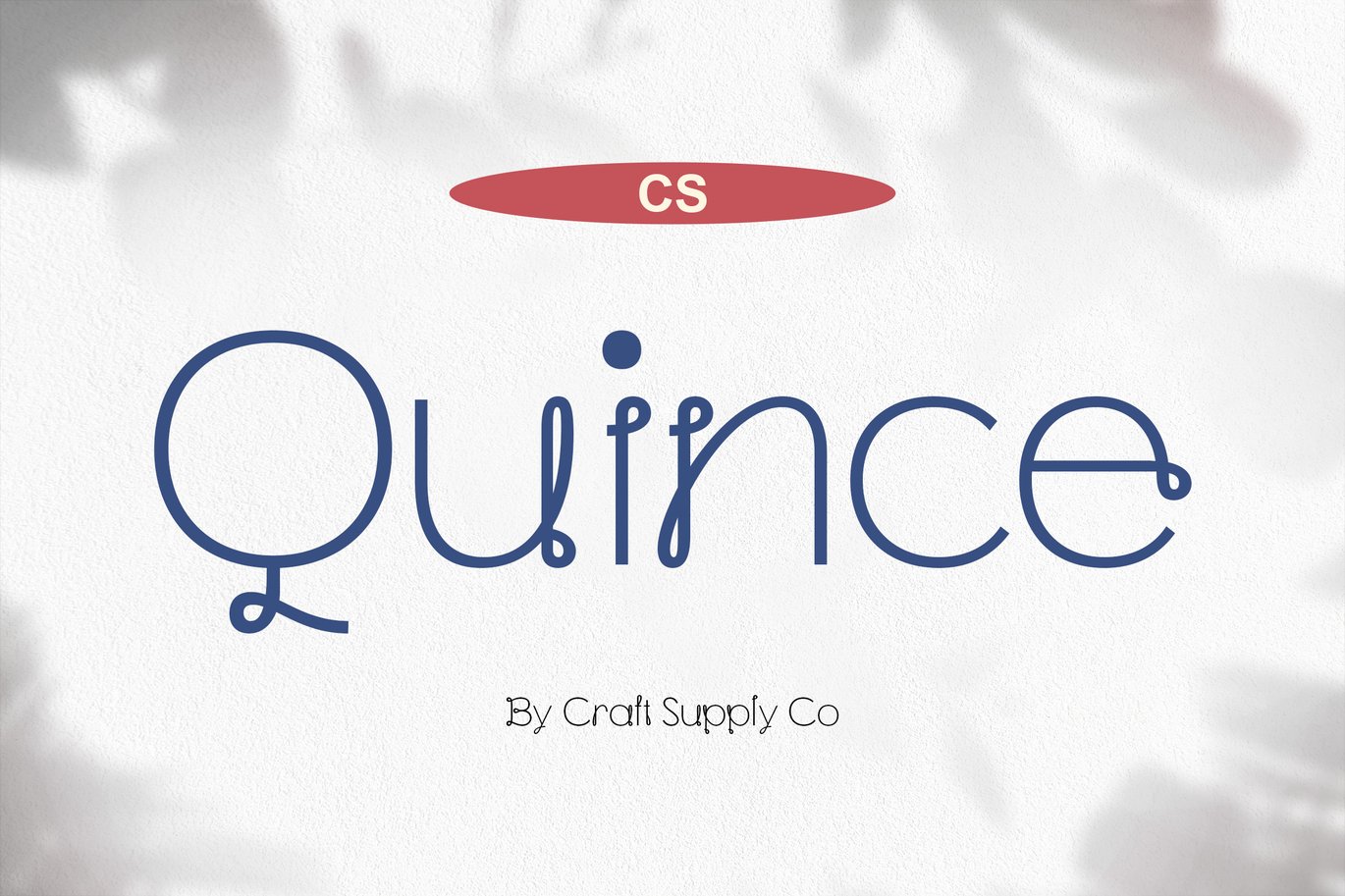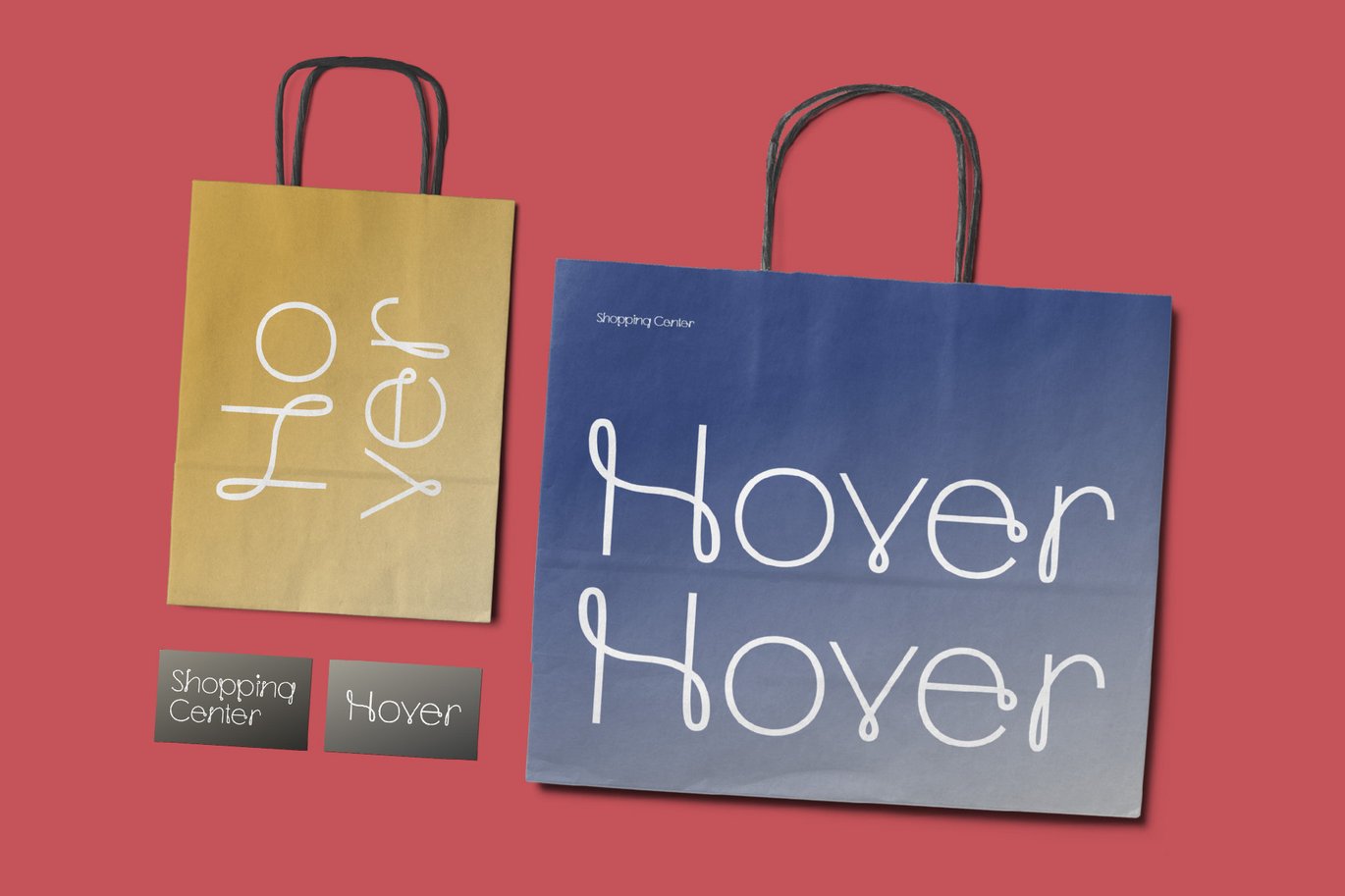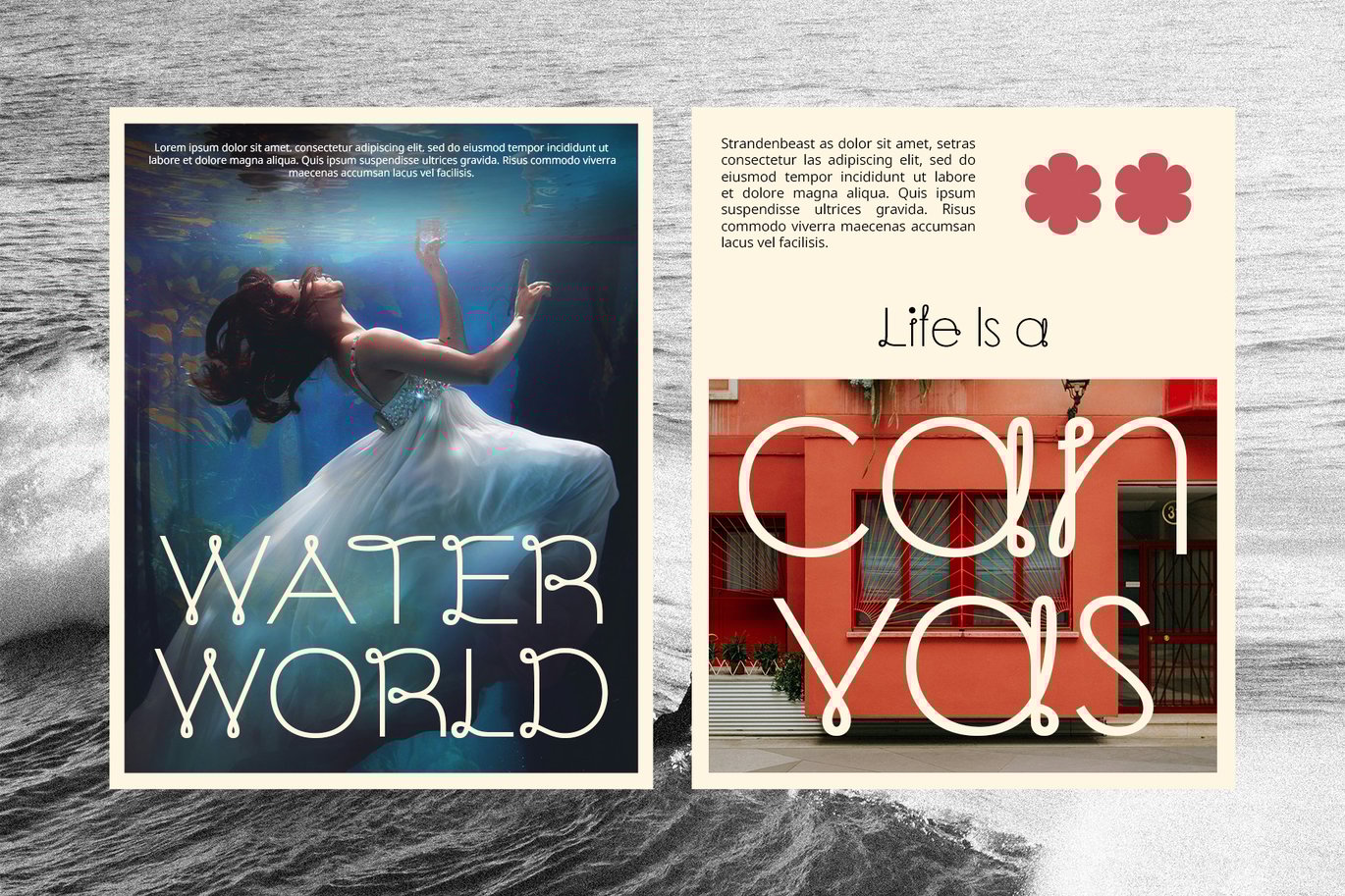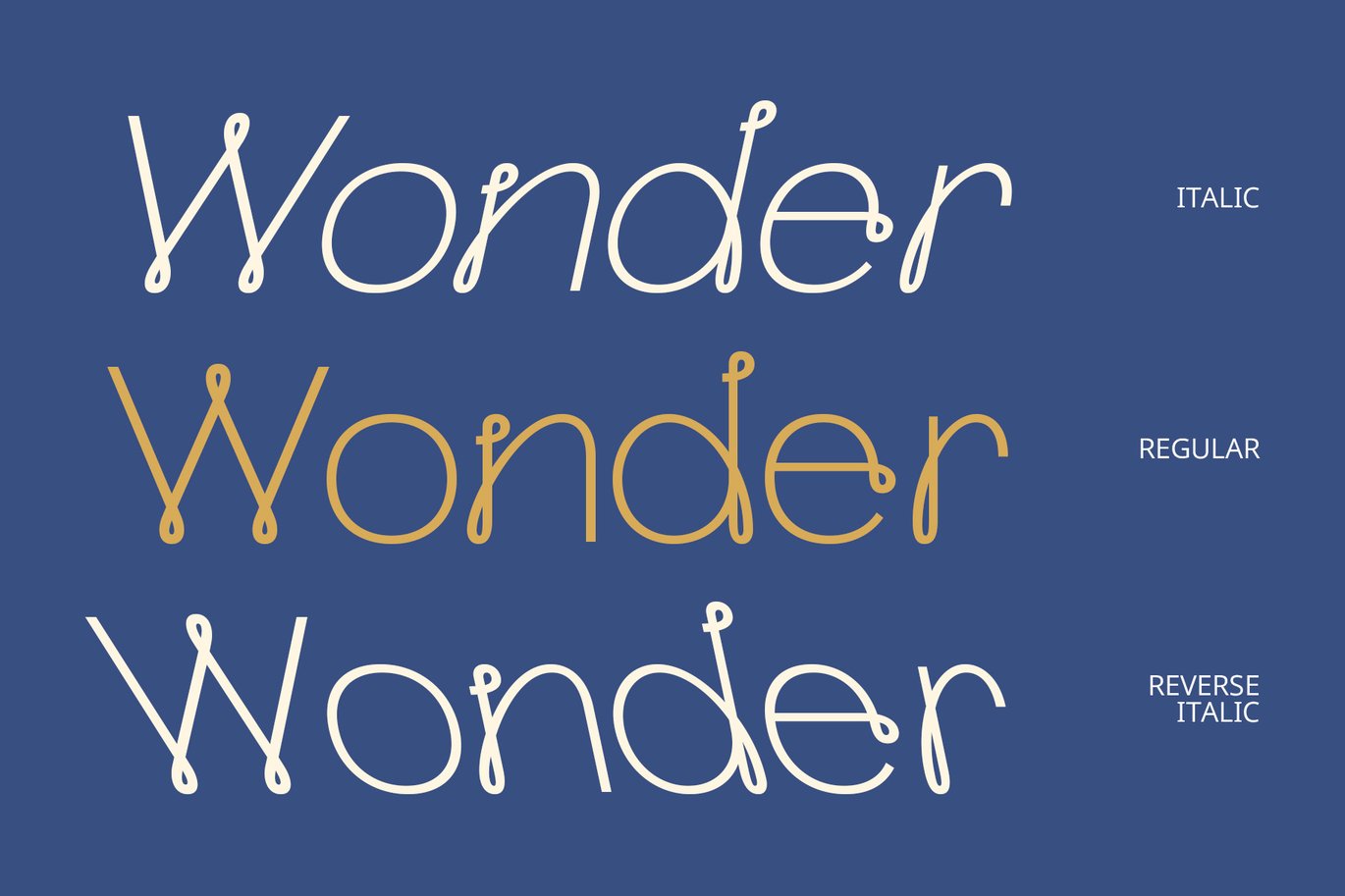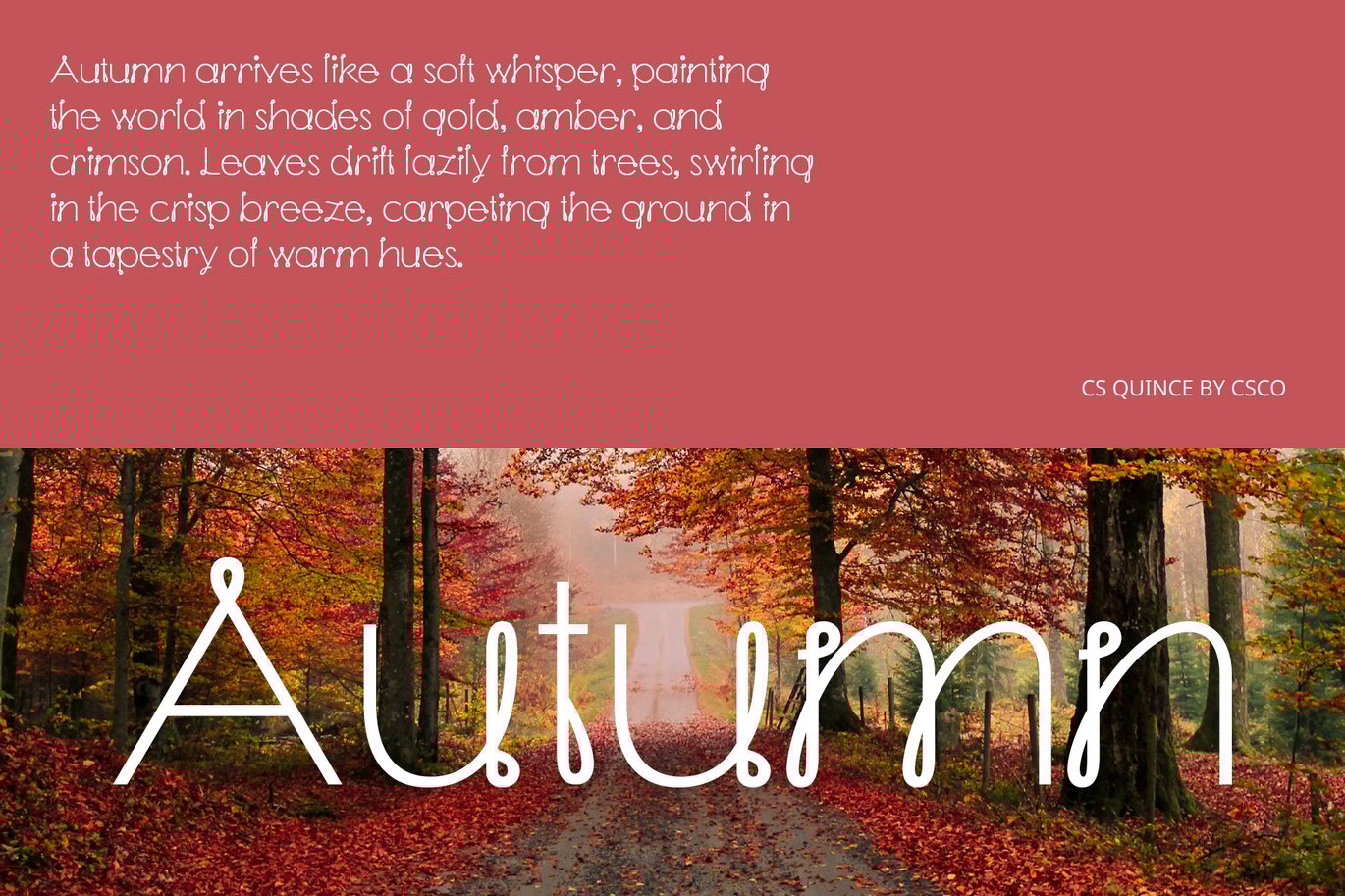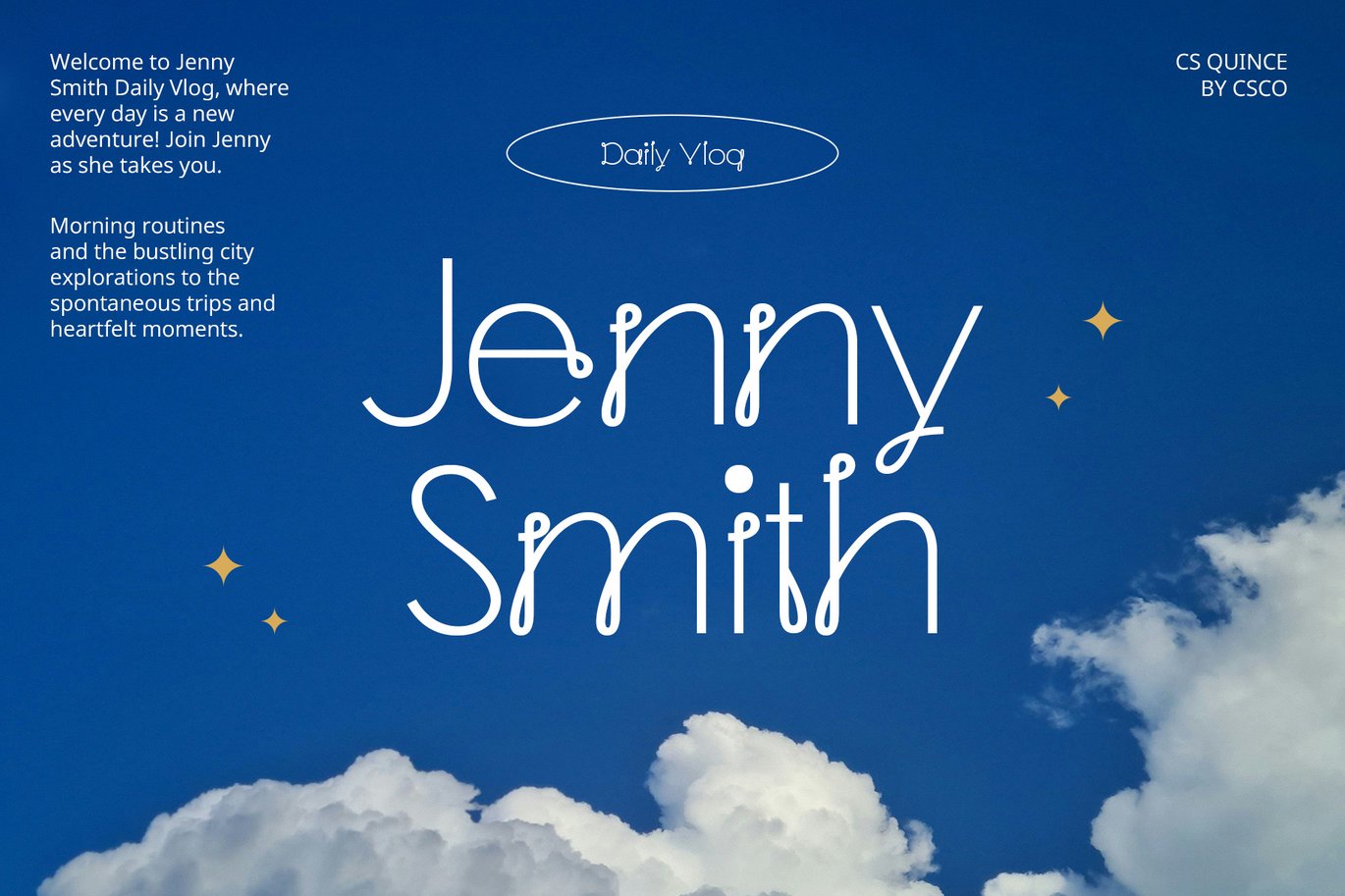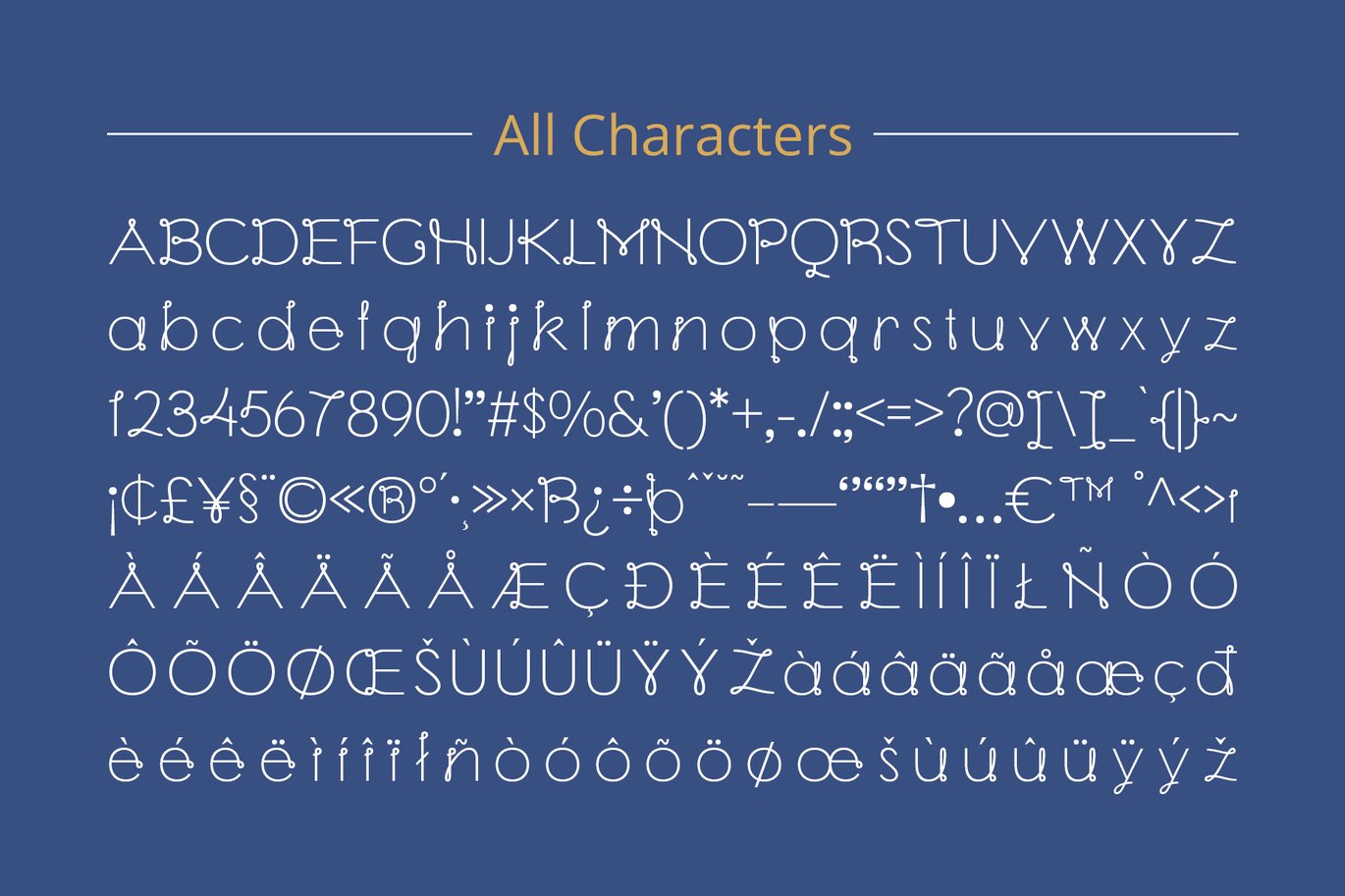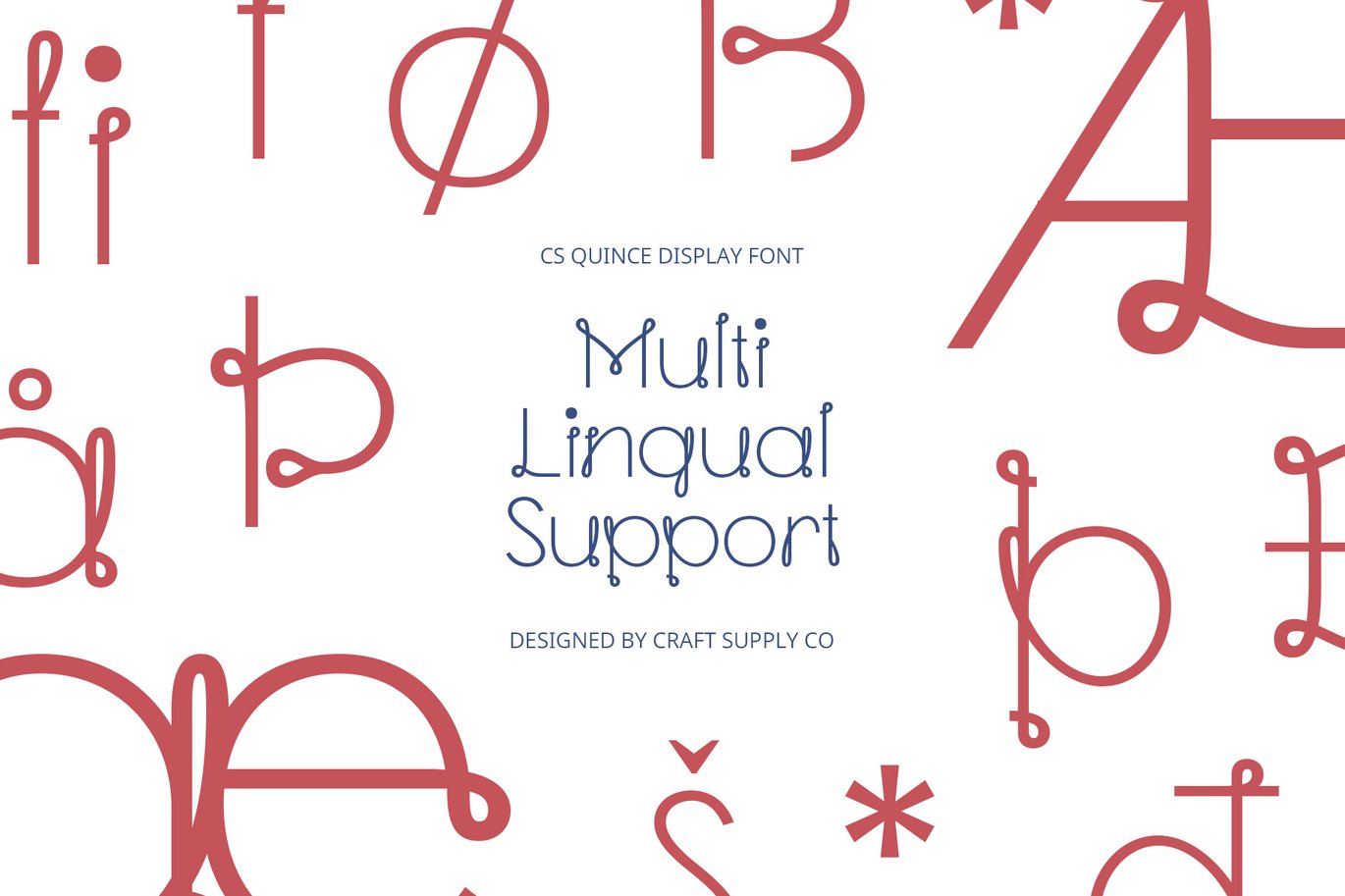
Quince – Cute Font
CS Quince – Cute Font: Playful Charm in Every Letter
Playful and Cheerful Design
CS Quince is a decorative display font that radiates fun and joy. With its playful shapes and rounded edges, this font exudes a light-hearted, cheerful energy. Perfect for adding a touch of whimsy to any project, it creates an instantly happy and inviting atmosphere. Whether you’re working on children’s books, fun branding, or designs that aim to inspire creativity, CS Quince brings a smile to every letter.
Perfect for Children’s Projects
CS Quince’s vibrant styling and approachable design make it ideal for projects aimed at younger audiences. From children’s books and educational materials to playful logos and party invitations, this font is the perfect choice for designs that need a cute, engaging, and friendly look.
Vibrant and Fun Branding
CS Quince’s lively character is perfect for playful branding projects. Its rounded, soft shapes and bright, energetic feel bring out the fun and creativity in any design. Whether you’re designing logos, websites, or promotional materials, this font ensures that your brand message comes across as inviting, joyful, and full of life.